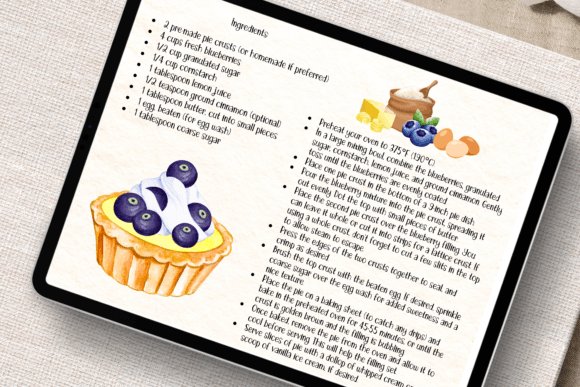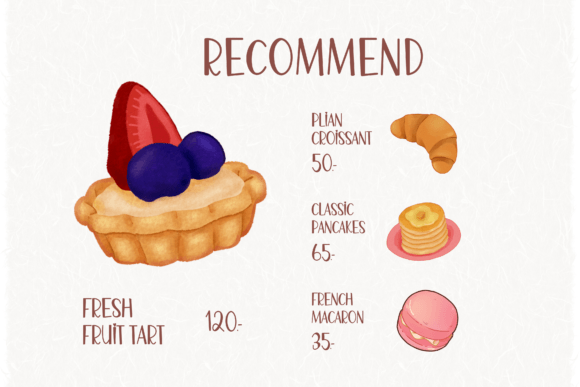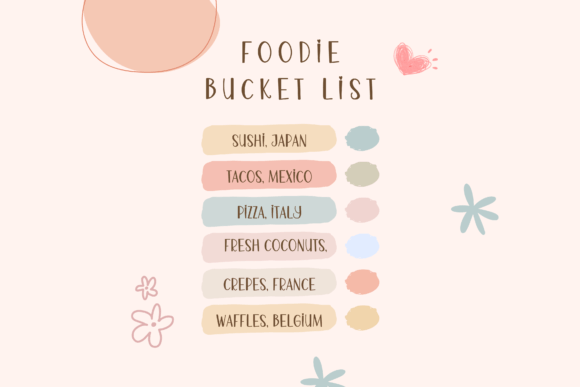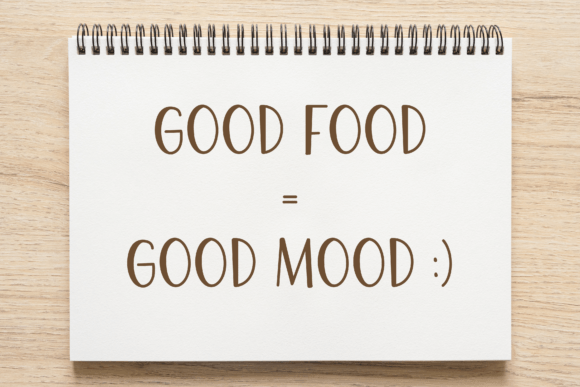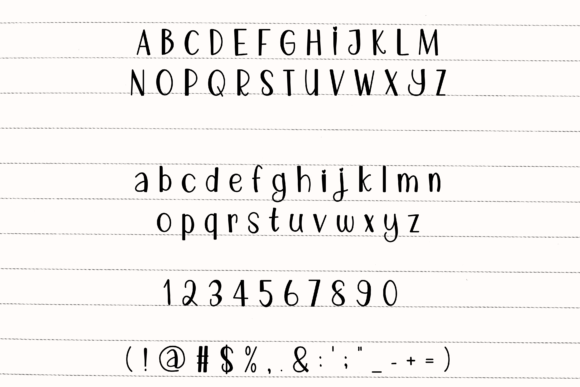
The Sweet Spot: Discovering Blue Berry Font for Your Creative Projects
I’ll never forget the time I was working on a digital planner project for a client, and I just couldn’t find the perfect font to match the playful yet elegant vibe they were going for. I scrolled through page after page of font options, but nothing seemed quite right. That was until I stumbled upon Blue Berry Font. It was like the clouds parted, and the perfect handwritten font shone down on me ✨. If you’re a designer, crafter, or creative hobbyist looking for a versatile and charming font, you’re in the right place!
First Impressions: A Review of Blue Berry Font
So, what makes Blue Berry Font so special? Let’s dive into the good stuff and a few quirks I’ve noticed.
• ✨ Simple yet elegant handwritten style that’s perfect for a variety of projects
• ✅ Includes upper and lowercase glyphs, numbers, and basic punctuation marks
• 💻 Great for digital use, such as social media graphics, GoodNotes, or digital planning
• 🎨 Versatile enough for branding, crafts, decor, invitations, and more!
• 🤔 Limited set of special characters or extended punctuation marks
• ⚠️ May not be the best fit for very formal or traditional designs
Exploring Alternatives: Similar Fonts to Blue Berry Font
While Blue Berry Font is certainly unique, you might be interested in exploring other options. Here are a few similar fonts and when you might use them:
• Pacifico: A beautiful, elegant script font perfect for more formal designs or branding
• Great Vibes: A fun, handwritten font with a bit more flair than Blue Berry Font
• Lobster: A classic, cursive script font great for headings or titles
• Carolyna Pro: A lovely, elegant script font with a range of stylistic alternates
The Story Behind Blue Berry Font
While the origins of Blue Berry Font might be shrouded in mystery, it’s easy to imagine a designer sitting down with a cup of coffee, brainstorming ideas for the perfect handwritten font. Perhaps they were inspired by the sweet, juicy taste of fresh blueberries and the simple joys of handwritten notes. Whatever the inspiration, Blue Berry Font is a delightful addition to any designer’s toolkit.
Q: Is Blue Berry Font suitable for body text?
A: While Blue Berry Font is beautiful, it’s best suited for headings, titles, or short paragraphs. For longer body text, a more traditional font might be easier to read.